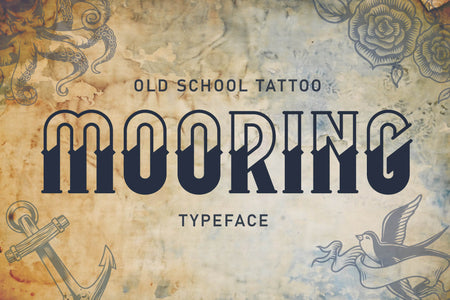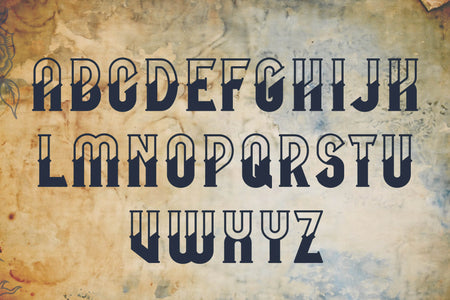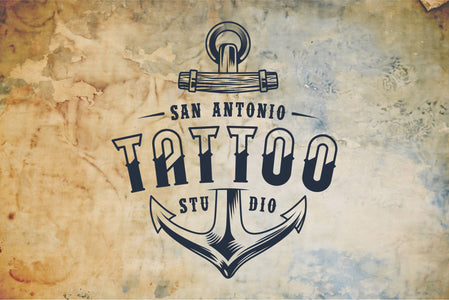
Mooring – Old School Tattoo Typeface + Bonus Vector Set
Mooring is an authentic old school tattoo typeface inspired by classic nautical and traditional tattoo motifs.
Designed to feel bold, timeless, and hand-crafted, this font works perfectly for tattoo studios, marine brands, vintage labels, patches, badges, emblems, logos, packaging, posters, apparel, and signage.
The typeface is ideal for sea, ocean, and sailor-themed designs, as well as bar signs, café branding, merchandise, headlines, and editorial layouts.
As a bonus, the font comes with a small set of classic tattoo-style vector elements that perfectly complement the lettering style.
– Full A–Z uppercase character set
– Numbers, punctuation, currency symbols, and multilingual characters are not included
– Tattoo studio branding
– Nautical and marine logos
– Apparel and patch designs
– Labels, badges, and emblems
– Posters, packaging, and signage
– Bar, cafe, and shop identities